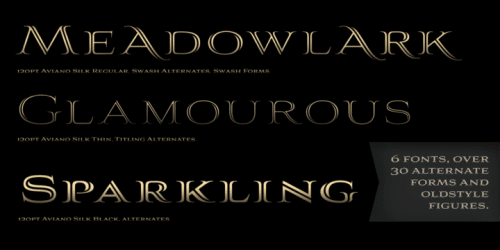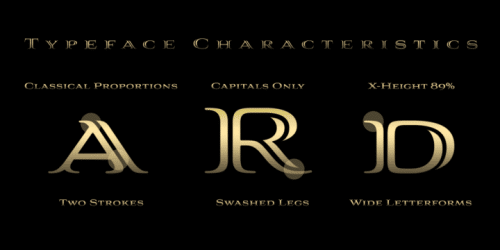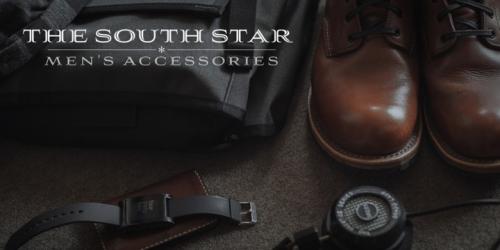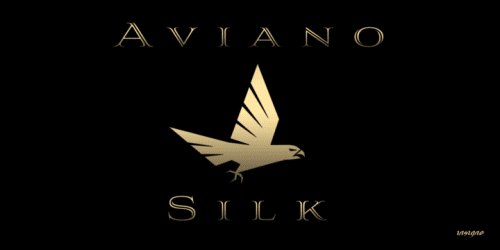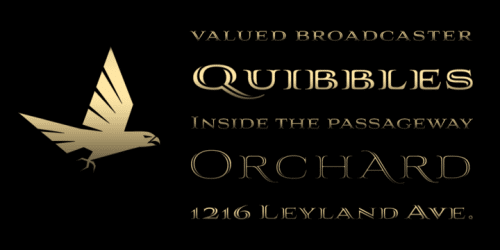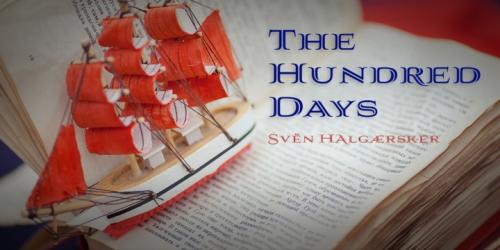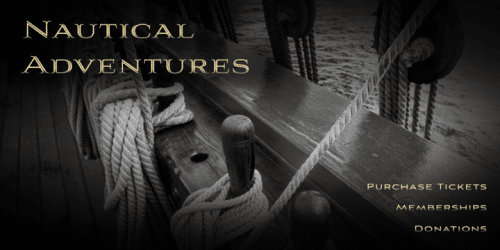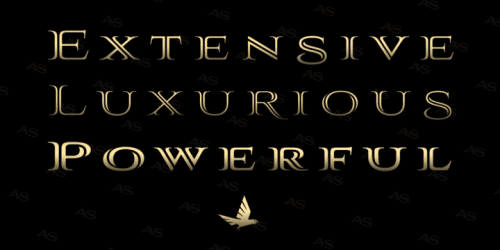
Aviano Silk Font Family
A premier product from insigne, the powerful Aviano redefines its classic lines for the contemporary elegance of Aviano Silk.
This modern development of a timeless font, part of insigne’s annual tradition in adding to the Aviano family, was elected the clear leader in a poll of insigne design’s social media followers.
Aviano Silk refers to the smooth flowing feel that the negative space gives the font. This particular example is sort of a hybrid between the stencil and a centerline. It has a certain amount of velocity to it. Extended characters lend formality and a sense of wealth and power. Due to the modifications required for the new look, the Silk family cannot work as an overlay for Aviano, though it pairs nicely with it. There are also 12 Aviano families that work well with Silk.
• Designer: Jeremy Dooley